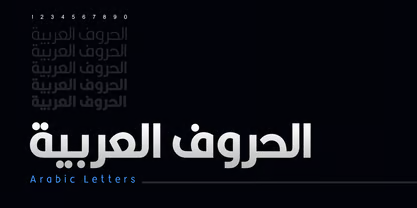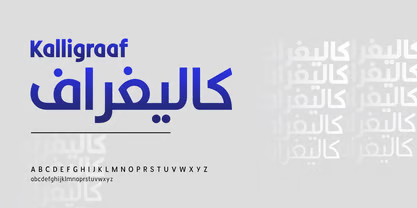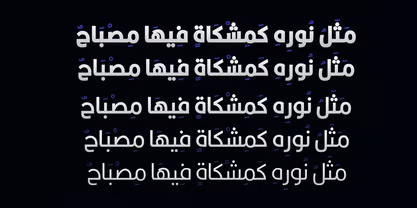
Kalligraaf Arabic Font Family
Caligraph is a thoughtfully crafted typeface that brings together three major scripts in a design inspired by the timeless art of calligraphy. With its elegant, flowing character and cohesive design language, this font allows you to create sophisticated projects that flow seamlessly across Persian, Arabic, and English while maintaining visual consistency.
Design Characteristics:
• Elegant, calligraphy-inspired letterforms
• Flowing, refined character with artistic grace
• Balanced proportions for excellent readability
• Sophisticated design suitable for formal applications
• Timeless appeal with contemporary polish
Persian (Farsi) Script:
• Complete Persian character set with calligraphic styling
• Full support for Persian-specific characters (گ، چ، پ، ژ)
• Correct representation of Persian numerals
• Proper character connections and positioning
• Graceful, flowing appearance
Arabic Script:
• Coordinated Arabic design matching Persian style
• Complete Arabic character set
• Full support for Arabic diacritics and marks
• Harmonious weight and proportion
English/Latin Script:
• Coordinated English design with calligraphic influence
• Complete uppercase and lowercase characters
• Numerals, punctuation, and special characters
• Clean, elegant appearance
• Elegant Branding: Sophisticated identities with artistic flair
• Wedding Stationery: Romantic invitations and materials
• Editorial Design: Magazines and publications
• Corporate Communications: Professional materials with elegance
• Packaging: Refined product presentation
• Logos: Graceful wordmarks
• Invitations: Sophisticated event announcements
• Certificates: Prestigious document design
• Social Media: Elegant, engaging content
• Calligraphic Beauty: Elegant, flowing letterforms
• Three Scripts, One Design: Consistent identity across Persian, Arabic, and English
• Comprehensive Support: All characters for all three languages
• Professional Quality: High-caliber font for commercial use
• Time-Saving: One font for three languages—no mixing required
Key Features of Caligraph Font:
• Complete support for Persian (Farsi), Arabic, and English scripts
• Elegant, calligraphy-inspired design
• Full character sets for each script
• Perfect for elegant, sophisticated design projects
• Wedding and event stationery designers
• Elegant brand creators
• Editorial and publication designers
• Graphic designers seeking refined typography
• Anyone needing graceful, calligraphic multilingual fonts